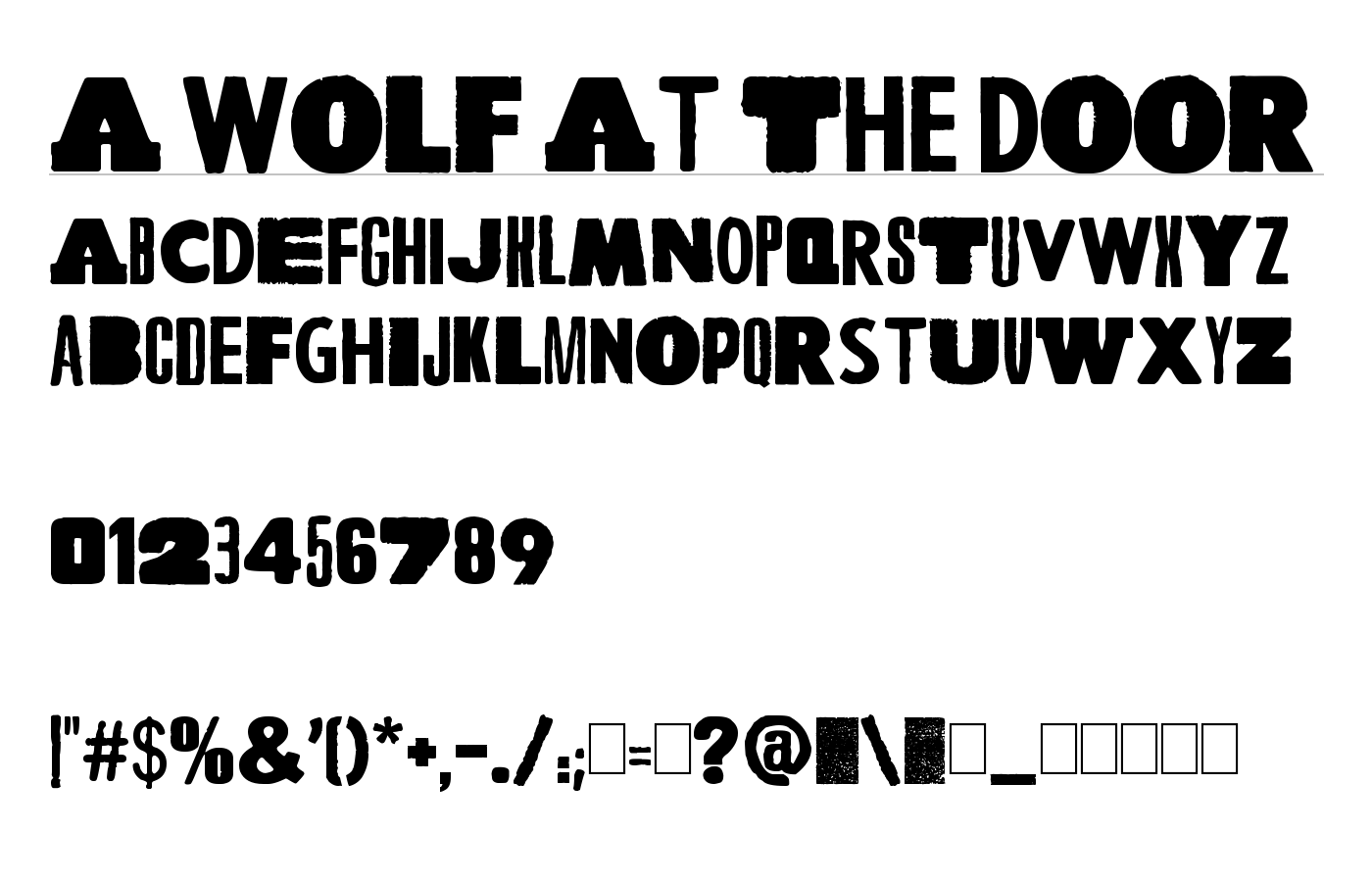
A Wolf At The Door is a bold, sans serif display font with a distressed, textured appearance that gives it a gritty, hand-crafted feel. Its heavy weight and condensed proportions make it ideal for striking headlines or brand logos seeking a rugged, vintage edge. This font works well in creative projects where an edgy, attention-grabbing aesthetic is desired, such as posters, packaging, or entertainment branding.
A Wolf At The Door Font
About A Wolf At The Door Font